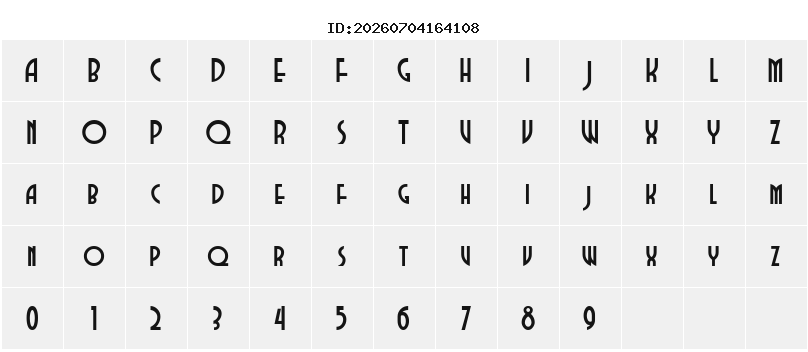
• Font Name: DubbaDubbaA
• Full Font Name: DubbaDubbaA
About DubbaDubbaA.ttf
DubbaDubbaA.ttf is a modern, elegant sans-serif font designed for ultimate readability and visual harmony. Perfect for branding, headlines, web design, and print materials.